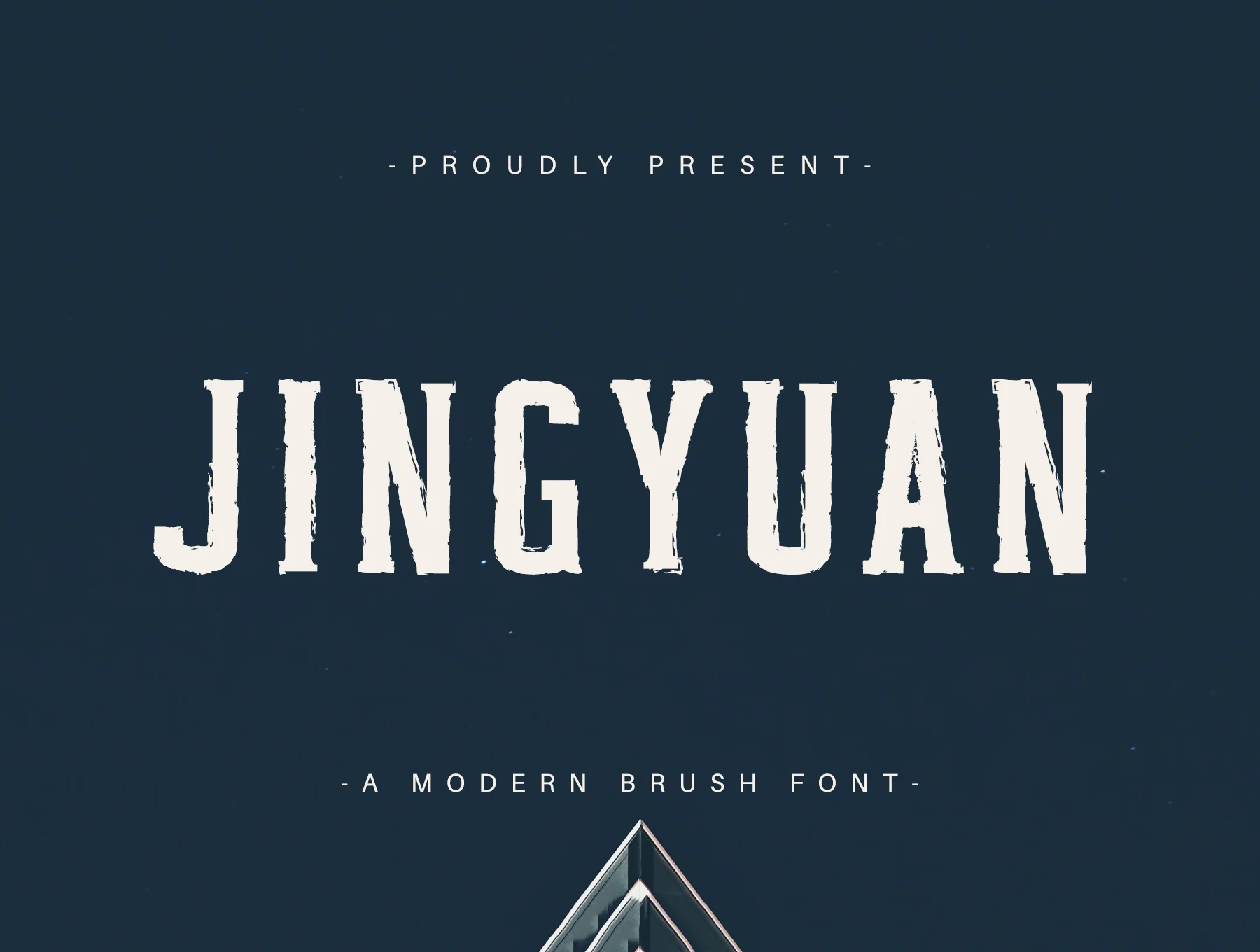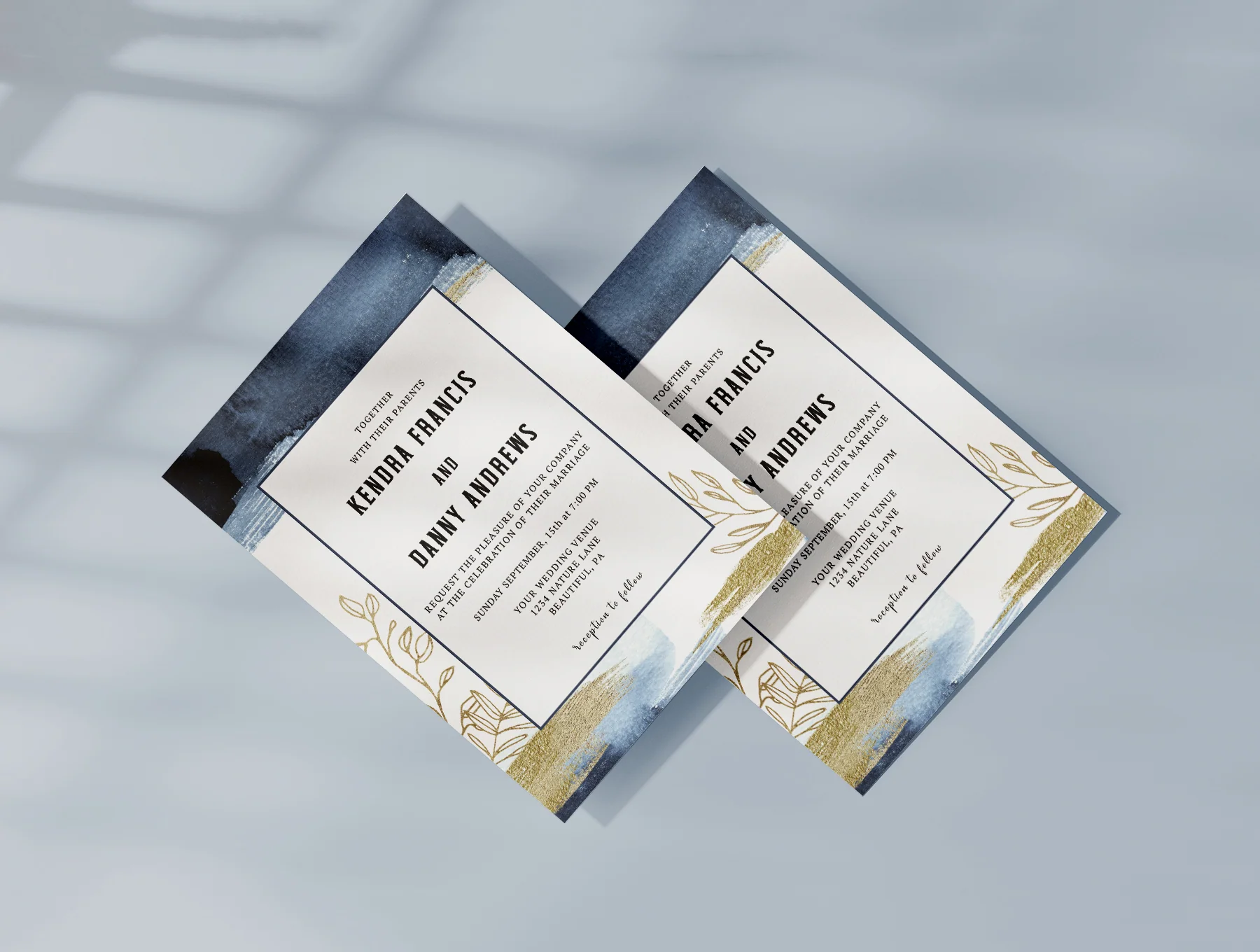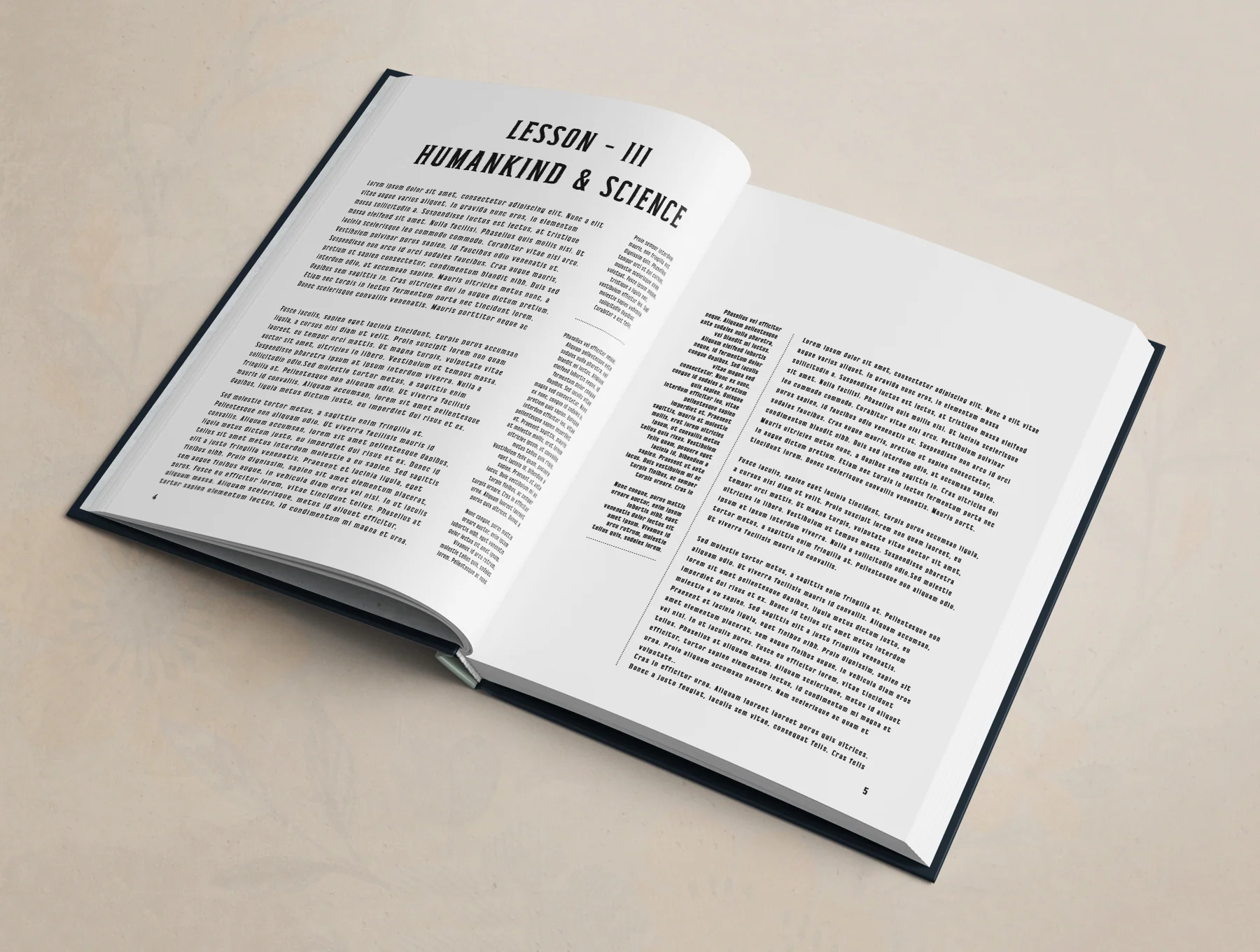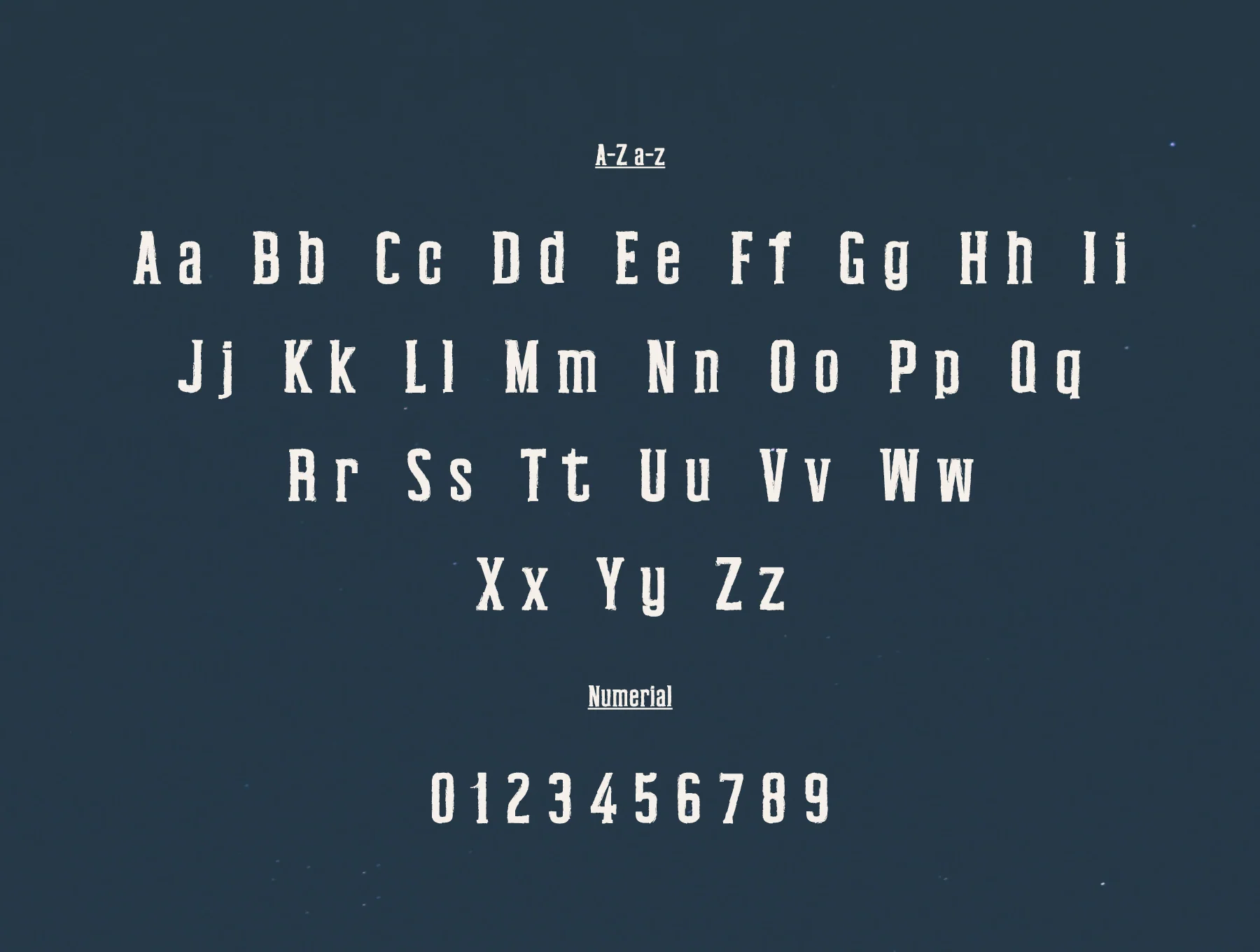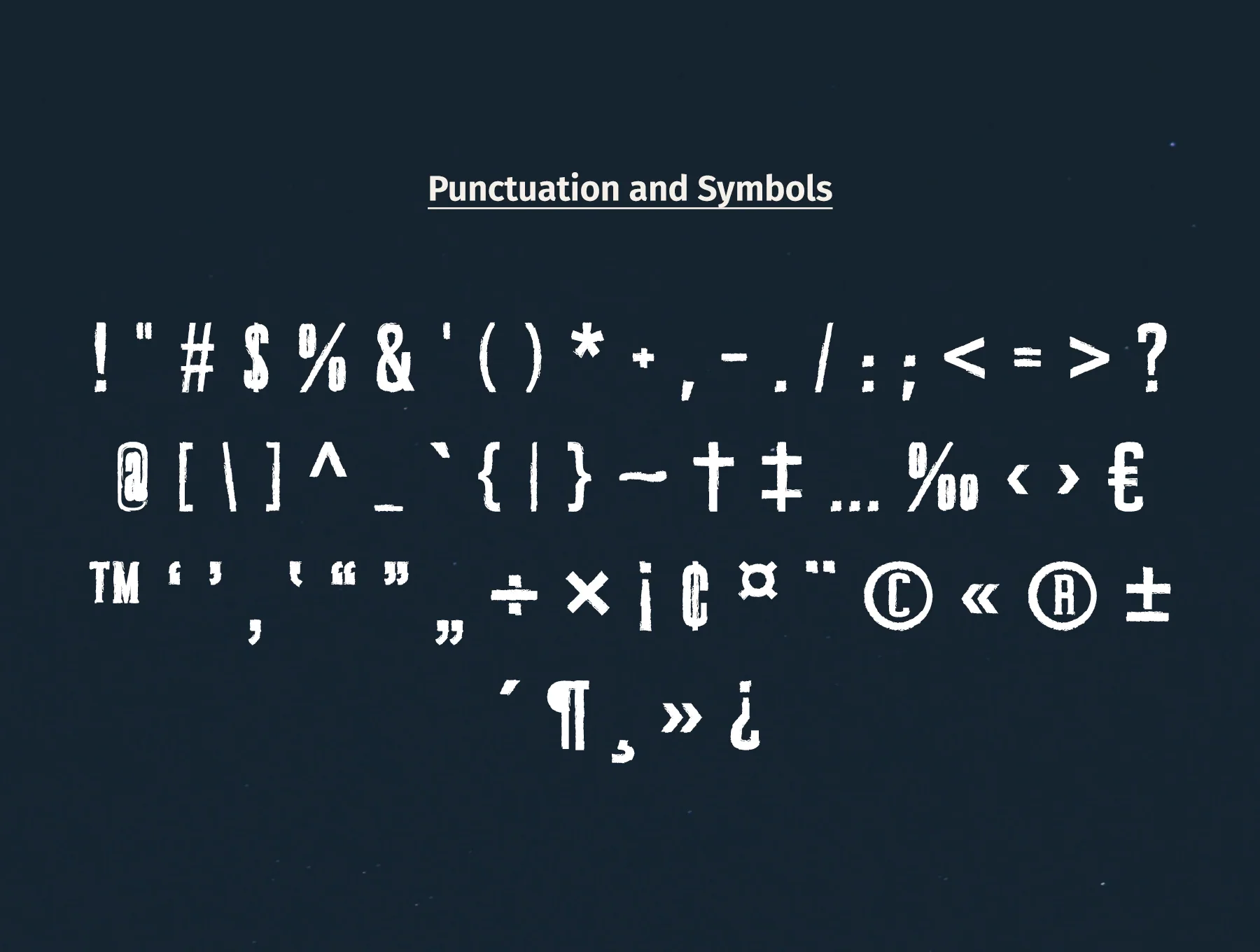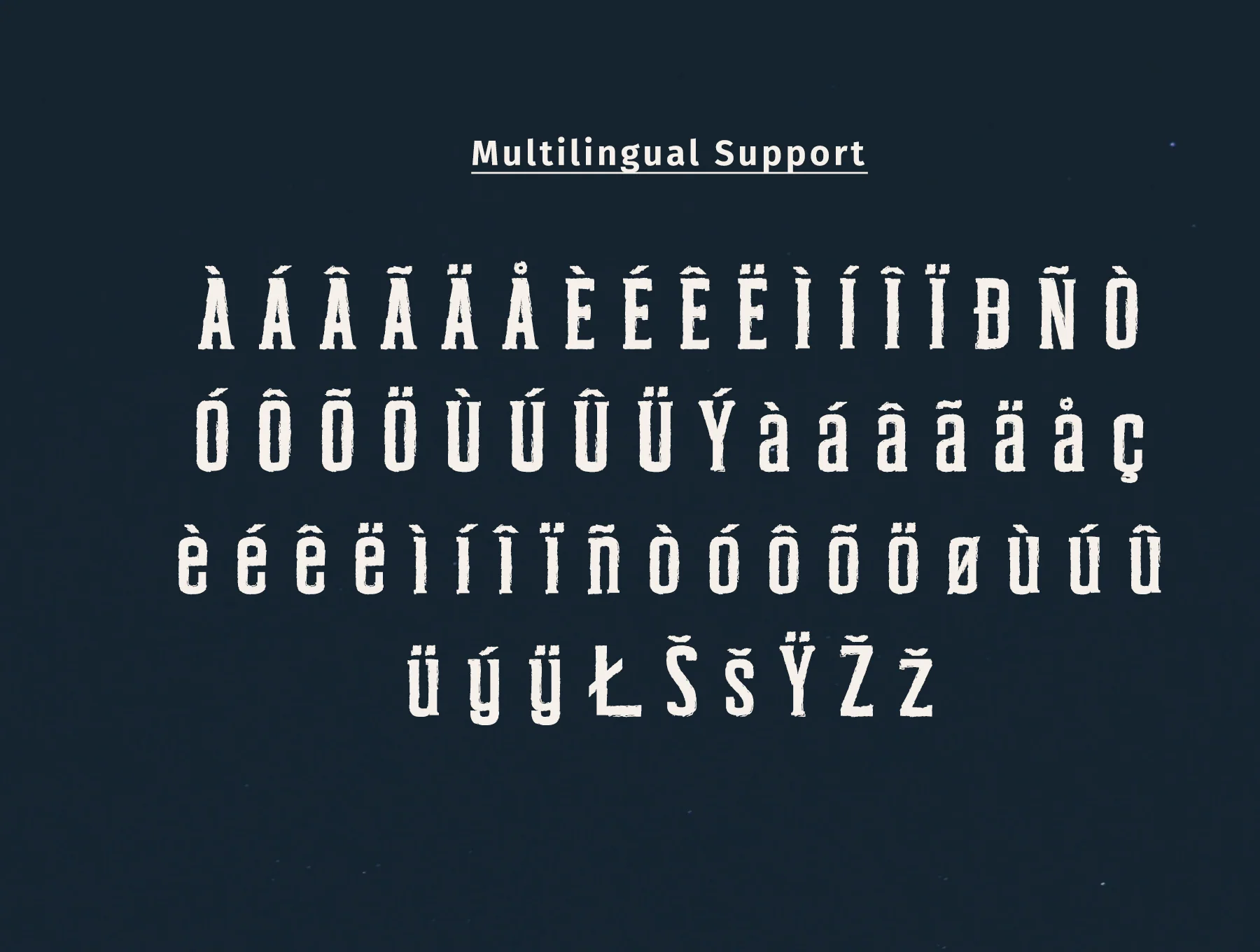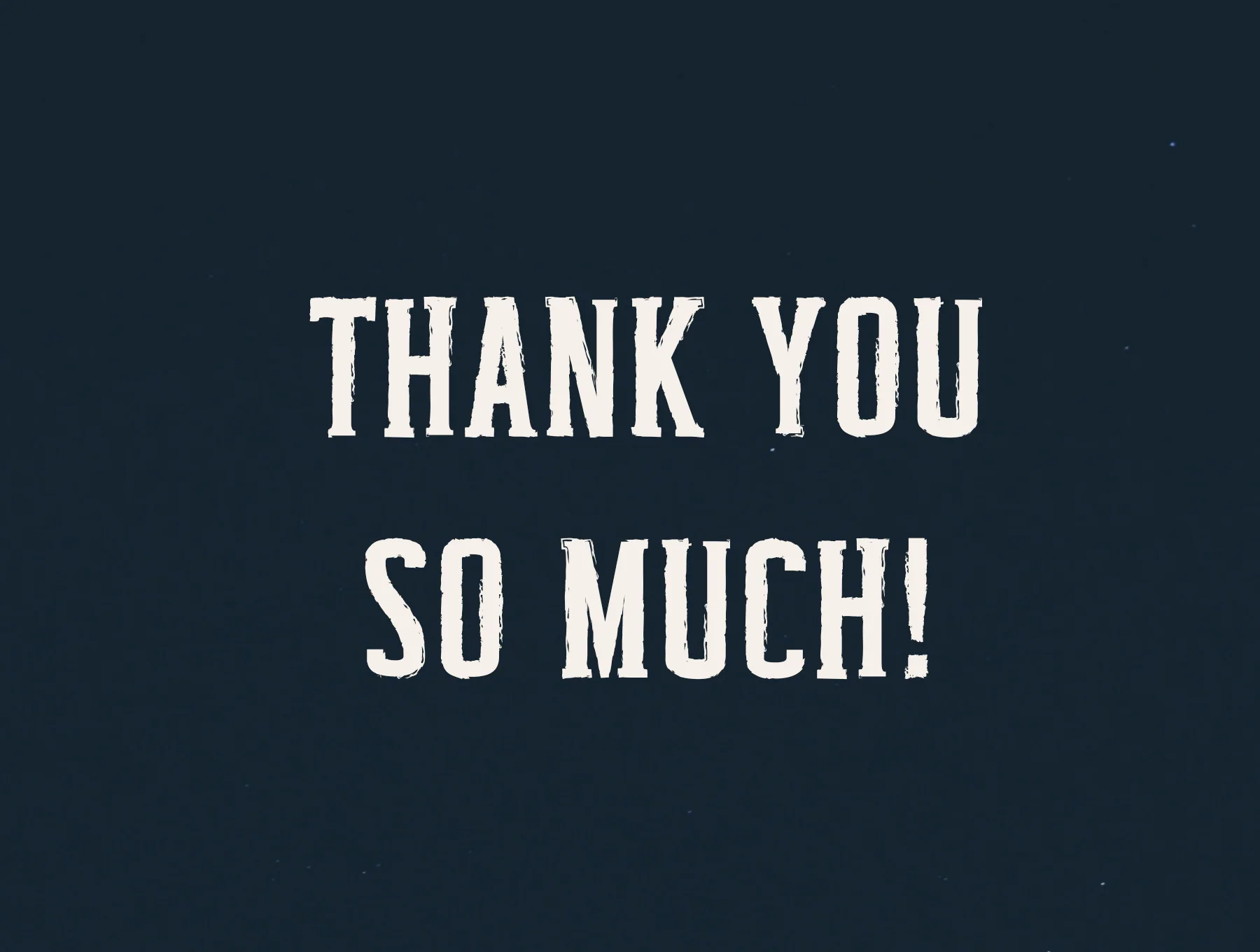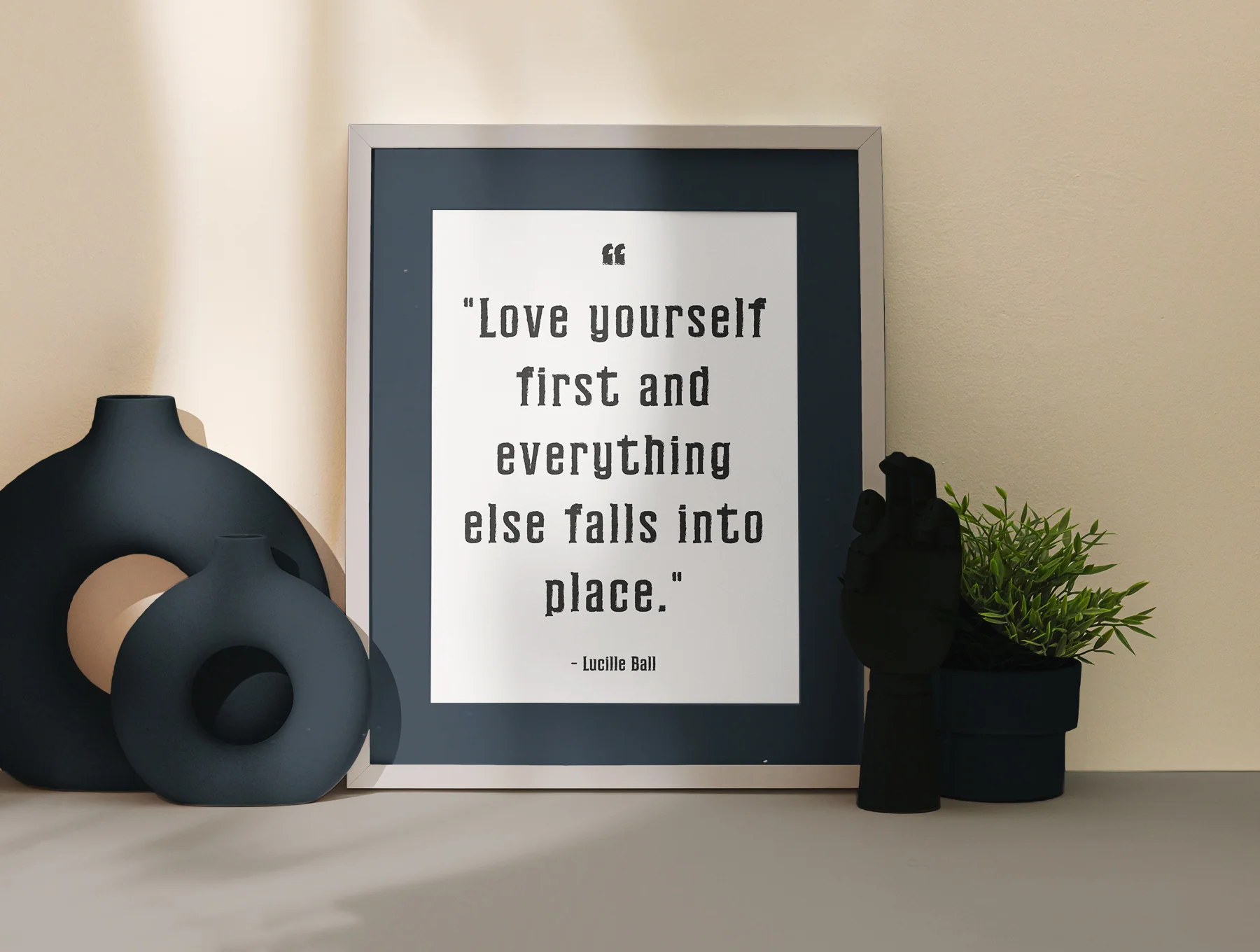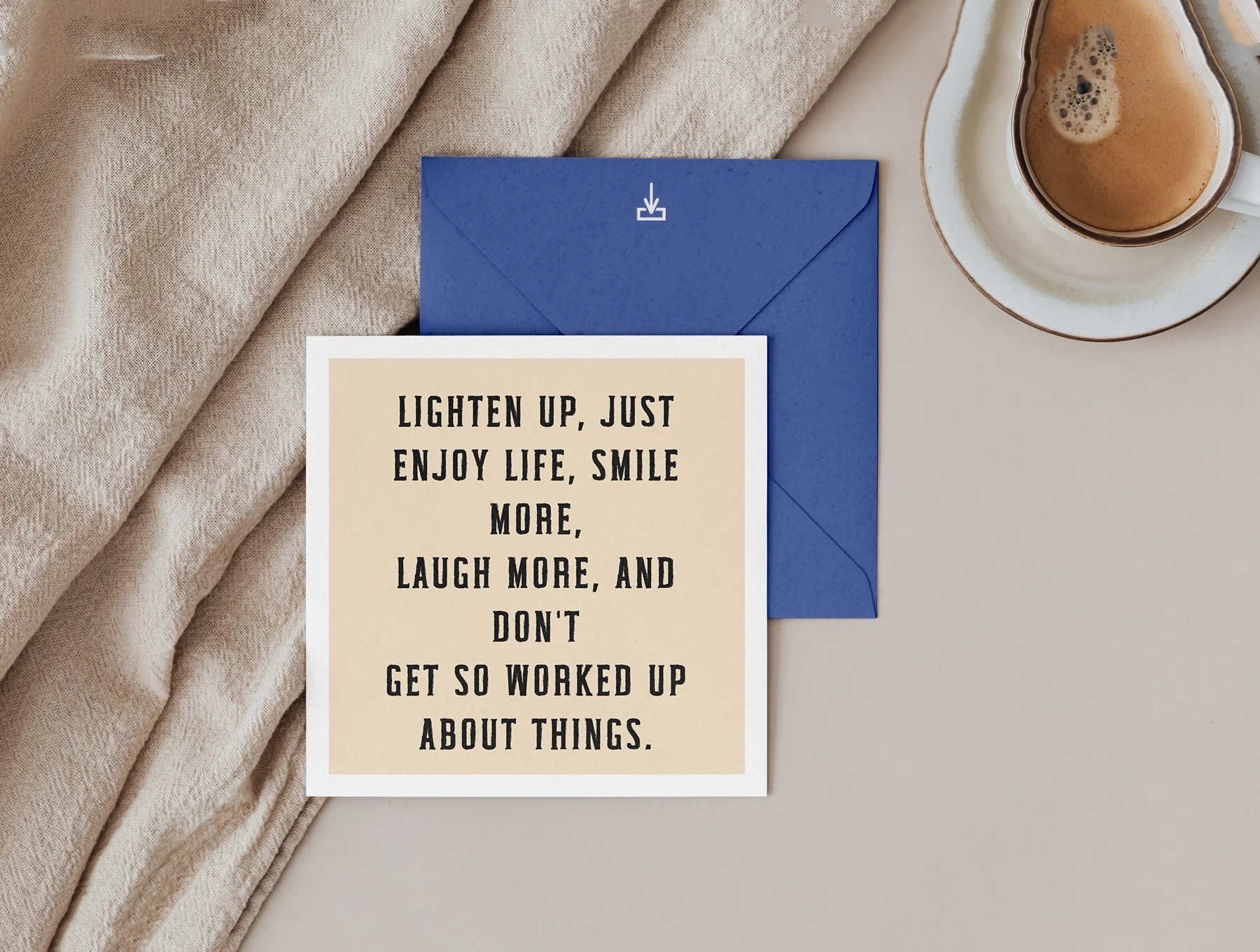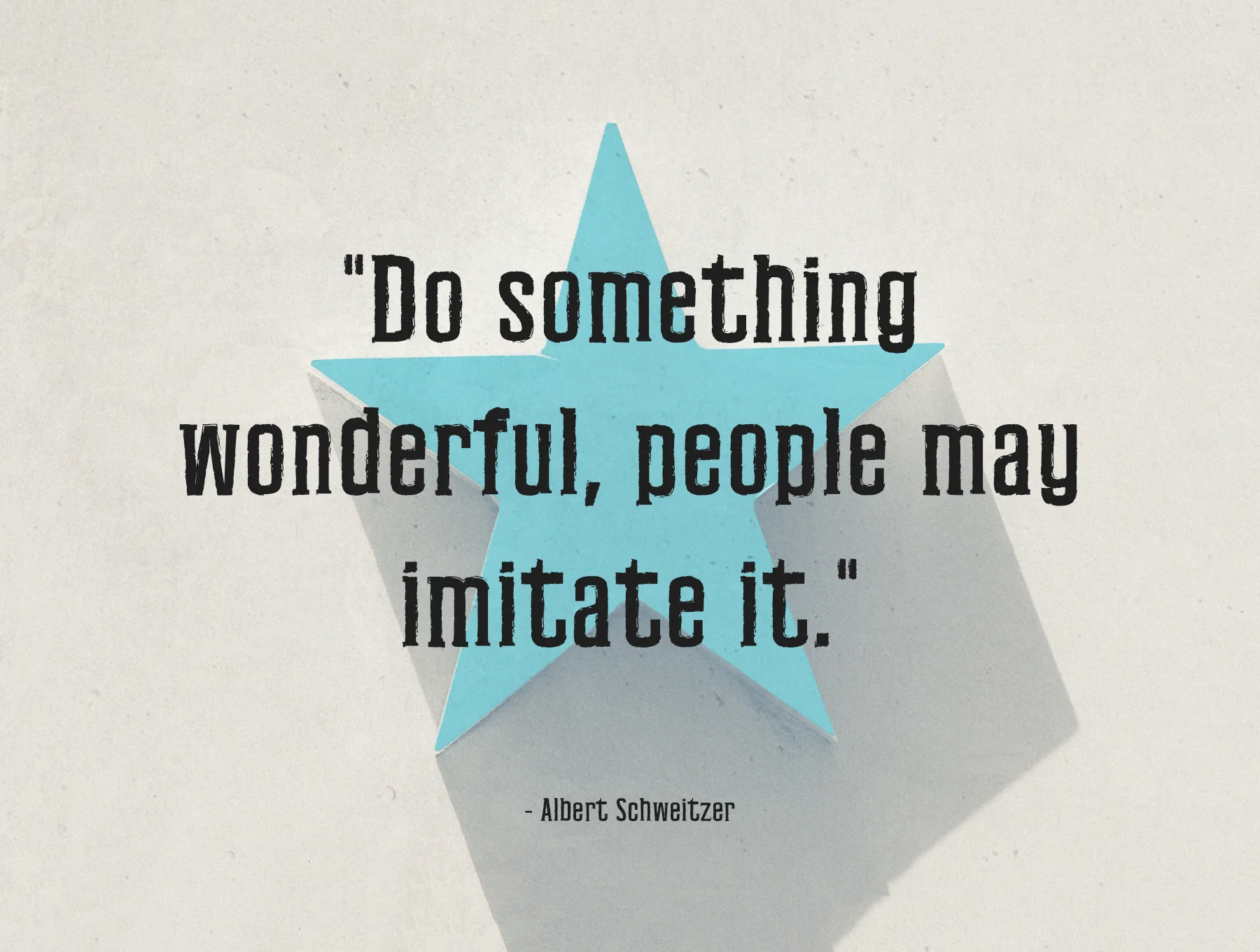
Jingyuan Brush Font
Jingyuan Brush Typeface
Hand-drawn brush typeface
Jingyuan Brush Font is a sleek, elegant contemporary typeface for future creative work. It includes uppercase and lowercase letters, numerals, punctuation, symbols, and multilingual characters. Supplied in Regular weight with OTF, TTF, and web font kit files, it suits logos, packaging, posters, branding, titles, invitations, books, web layouts, ads, and more.